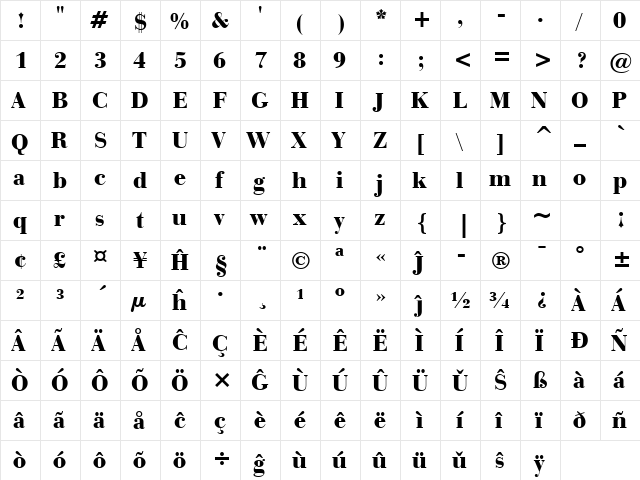
BauerBodni Blk BT Eo Black
Design Context for BauerBodni Blk BT Eo Typeface
BauerBodni Blk BT Eo is a composed and adaptable typeface that performs quietly and consistently across a wide range of design contexts.